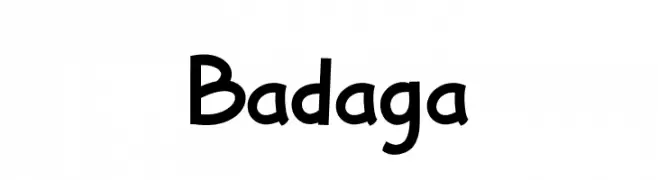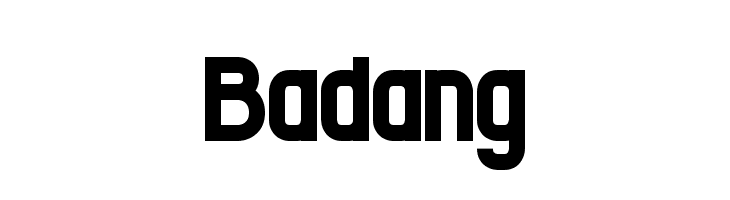
A bold, gothic-inspired font with sharp, angular edges and dramatic flourishes.
A playful, bold font with rounded, slightly irregular letterforms.
A bold, geometric font with a strong, blocky appearance.
An artistic, calligraphic font with flowing, curvilinear strokes.
A bold, geometric font with a strong and impactful presence.
A bold, italic font with a dynamic and modern style.
A bold, illustrative font with unique, hand-drawn characters filled with graphic elements.
A flowing, elegant script font with smooth, cursive letterforms and artistic flourishes.
A bold, playful handwritten font with a casual and modern style.